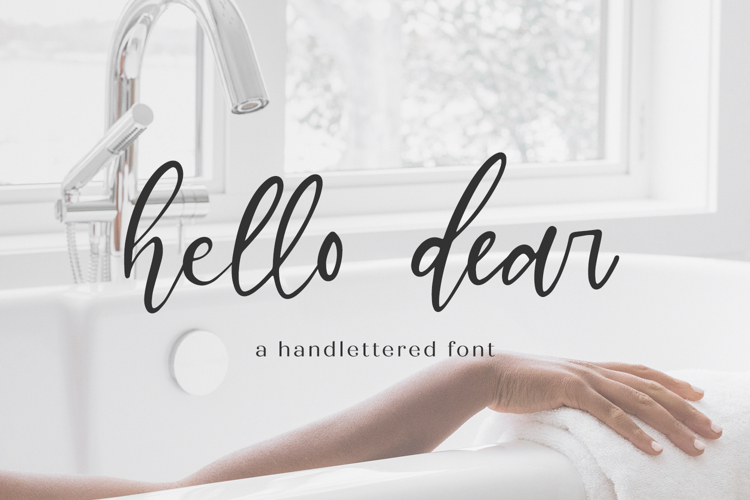
Hello Dear Script
Introducing Hello Dear Script, a feminine cursive font. This stylish font features a messy, casual look and includes a full set of lowercase alternates and some common double letter ligatures.
Hello Dear Script is best for:
- website design + website accents - think design blogs, travel blogs, fashion blogs, & more
- 26 lowercase alternates
- 21 ligatures - ar, bb, cc, cr, dr, ee, er, ff, gg, ir, ll, mm, nn, oo, or, pp, rr, ss, tr, tt, ur